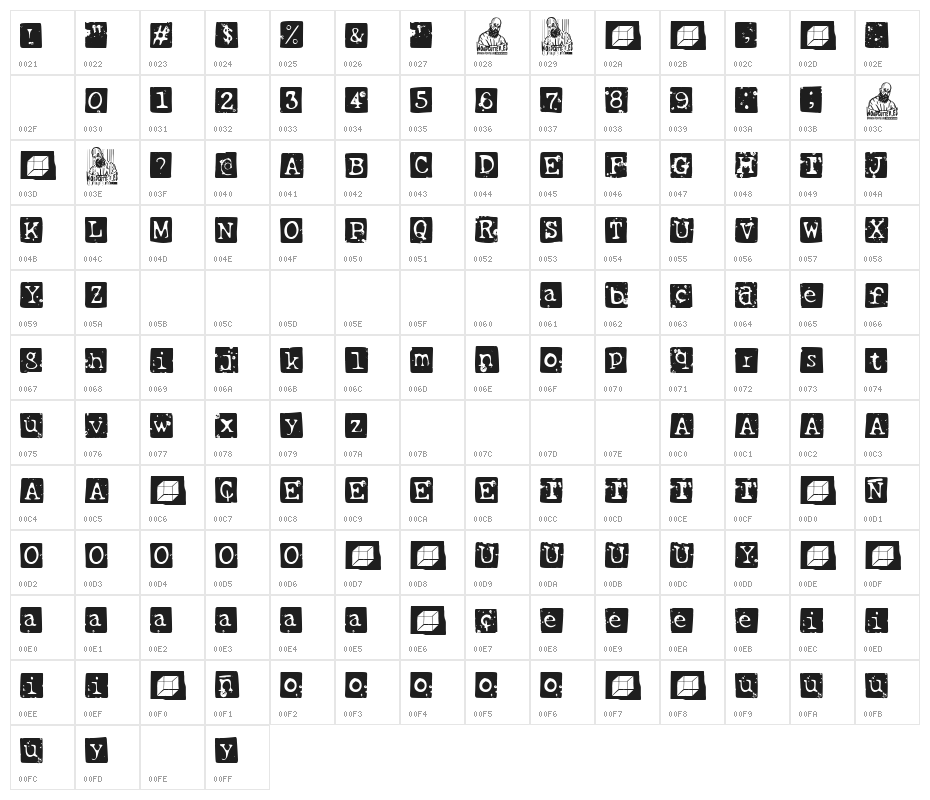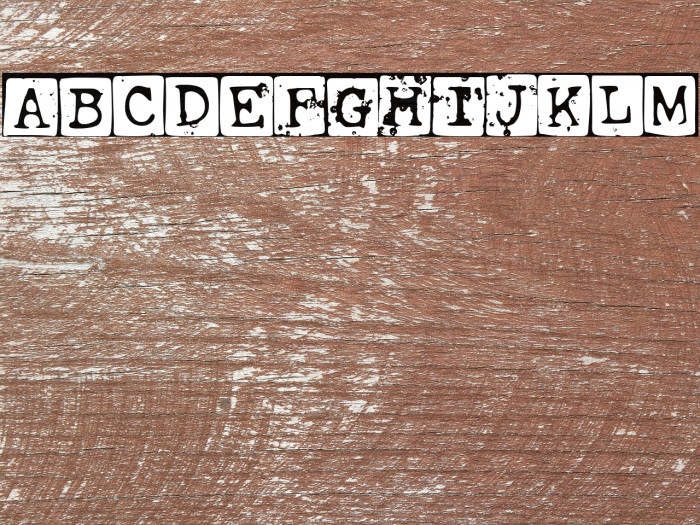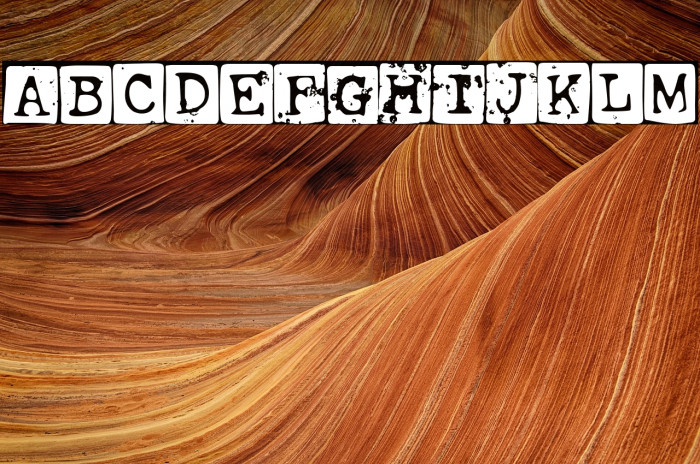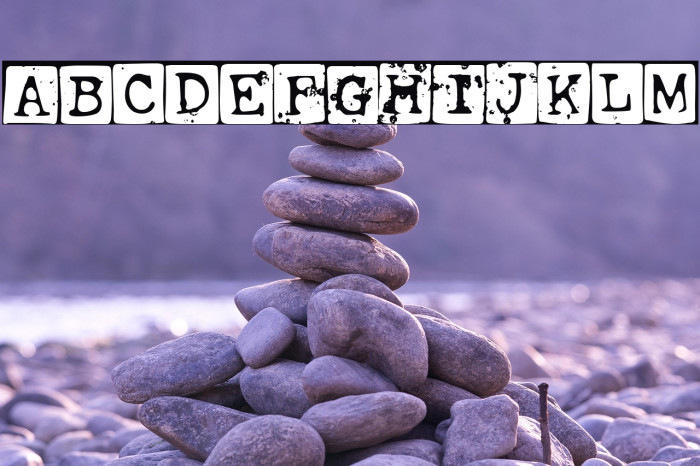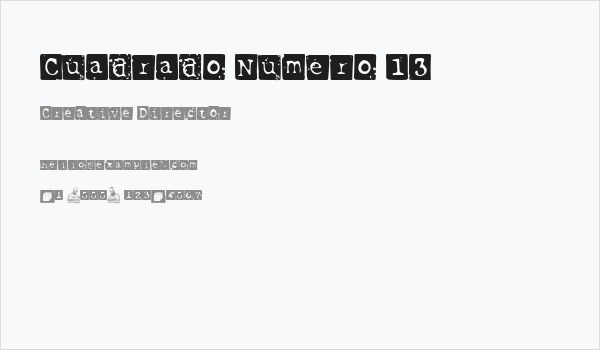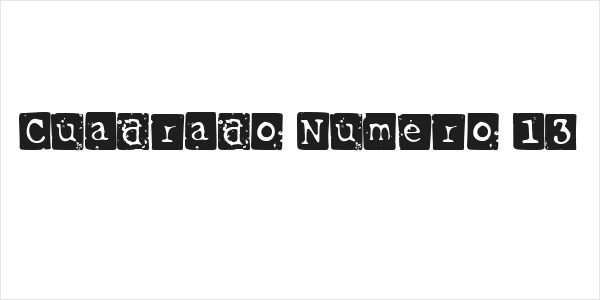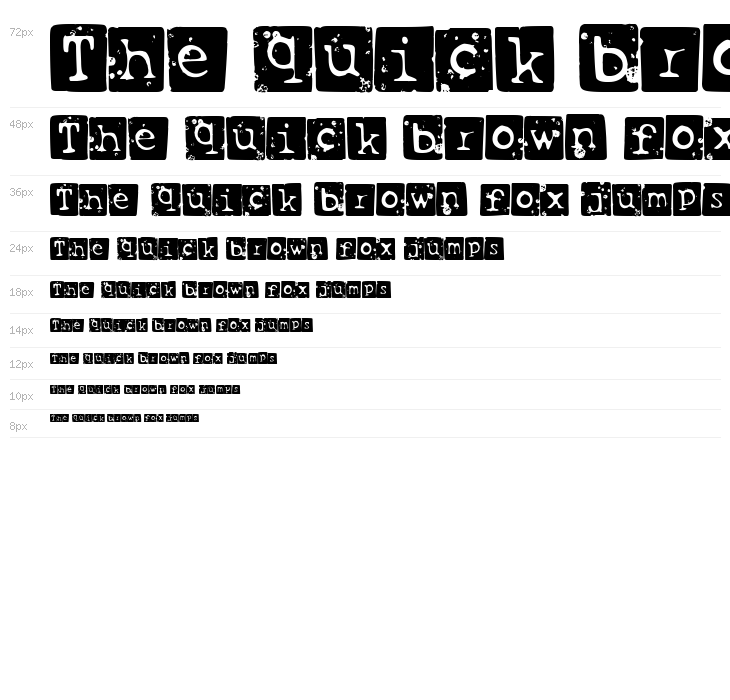
Cuadrado Numero 13 Font
Cuadrado Numero 13 Description
This font features a distressed, grunge style with each character enclosed in a square block. The letters and numbers have a worn, textured appearance, giving them a rugged and edgy look. The uppercase and lowercase letters maintain a consistent style, with slight variations in texture to enhance the distressed effect. The numbers and special characters follow the same design, ensuring uniformity across the font. This style is reminiscent of old typewriter keys or stamped lettering, adding a vintage and industrial feel to any project.
| Proposed Projects | Ideal for posters, album covers, urban-themed designs, and any project needing a vintage or industrial touch. |